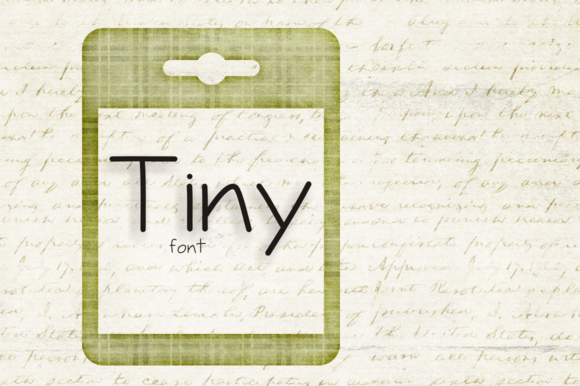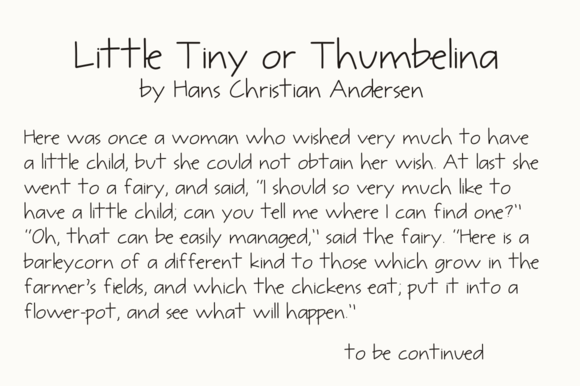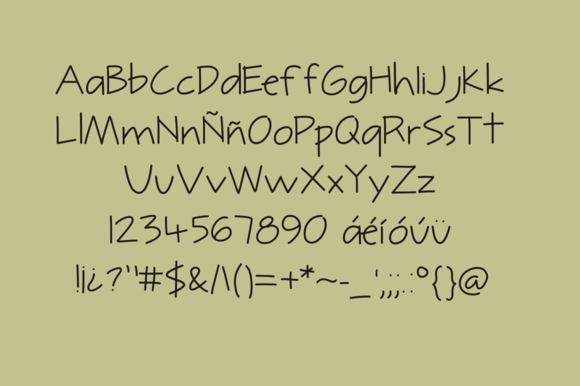
HomeScript FontsTiny Script Font Script Fonts Tiny Script Font FacebookXPinterestWhatsApp Tiny Script Font Poster 2 Tiny Script Font Poster 3 Tiny Script Font Poster 4 About Tiny Script Font Tiny is a beautiful typeface. It looks very simple, clear and fresh. DOWNLOAD ON CREATIVE FABRICAThis font is sold and delivered by Creative Fabrica. Font Canyon may earn a commission if you buy through this link. People also explored Hiladous Font Hello Wedding Font Beautifull Font History Font Happy Birthday Font Font Coffee Milk Font Aimee Font Stone Proof Eiffal Merrias Font 257 0 TagsTiny Script Font Previous articleYuju FontNext articleSnow Font LEAVE A REPLY Cancel reply Comment: Please enter your comment! Name:* Please enter your name here Email:* You have entered an incorrect email address! Please enter your email address here Website: Save my name, email, and website in this browser for the next time I comment. Personal Use Free Over the Top Personal Use Free Read more about this font Miss Love Personal Use Free Read more about this font Foolish Hand Personal Use Free Read more about this font Hello Holiday Personal Use Free Read more about this font BLOG How to Install and Use Fonts on Windows, macOS, and Web Projects How to Install and Use Fonts on Windows, macOS, and Web Projects Fonts are a crucial part of design and branding. Whether you’re designing a... Free vs Paid Fonts: Why Investing in Premium Fonts Is Worth It 5 Fonts That Will Dominate Design Trends in 2026 Fonts That Capture the Spirit of New York City